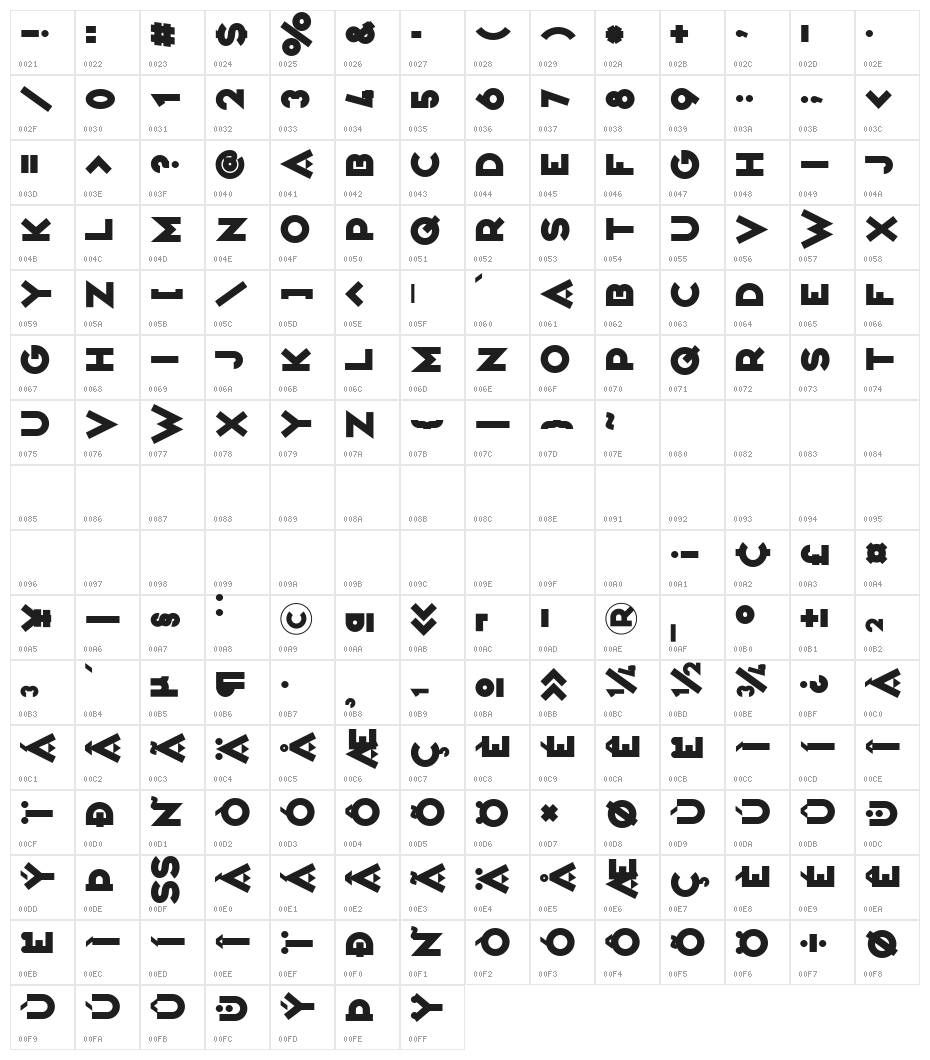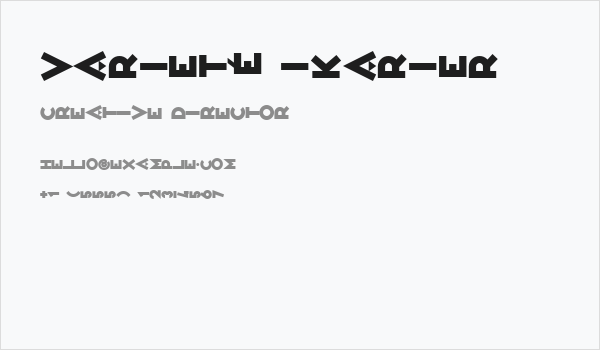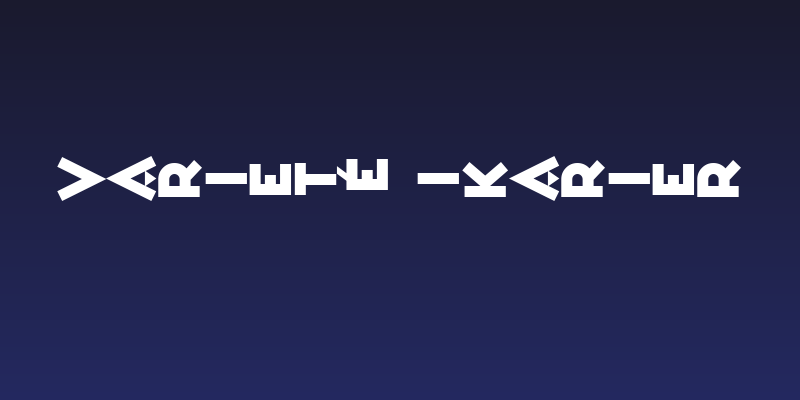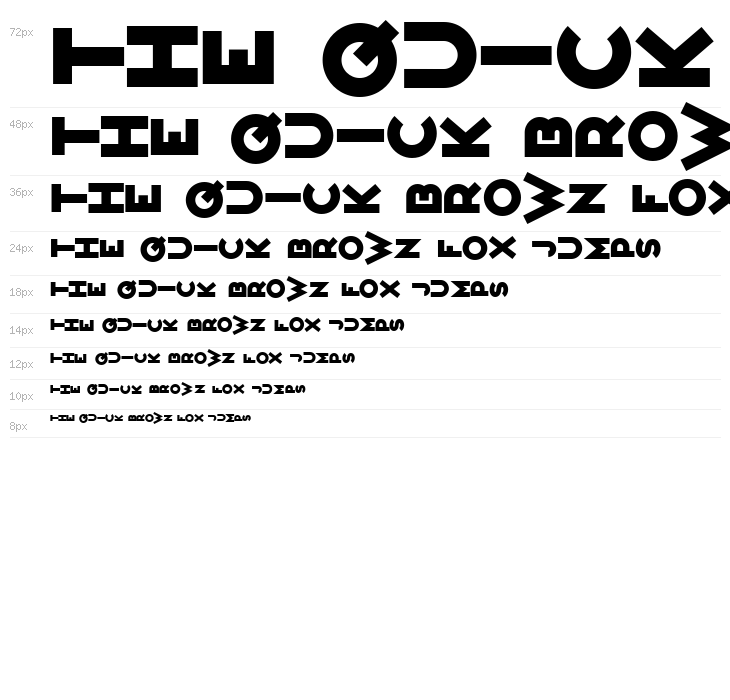
Varieté Ikarier Font
Varieté Ikarier Description
This font features a bold and geometric design, characterized by its thick, uniform strokes and unique angular shapes. The letters are crafted with a modern aesthetic, incorporating sharp edges and a distinct, futuristic style. The uppercase and lowercase letters maintain a consistent weight, providing a cohesive appearance across the alphabet. Numbers and special characters follow the same design principles, ensuring a uniform look. The font's boldness and geometric nature make it stand out, making it suitable for eye-catching designs.
| Proposed Projects | Ideal for branding, posters, and digital media where a strong, modern impact is desired. |